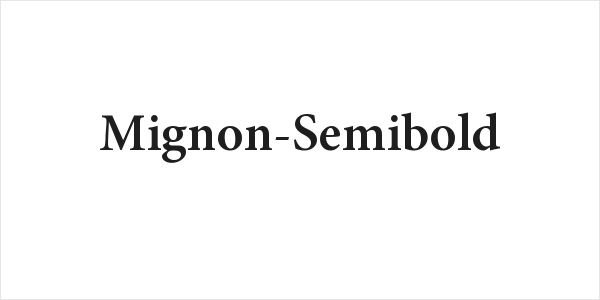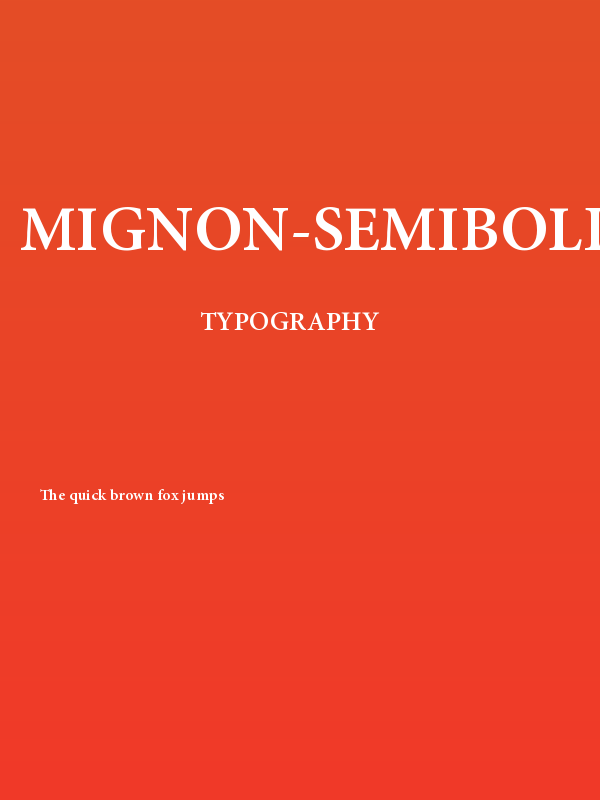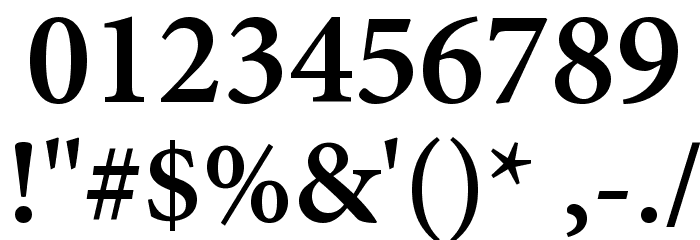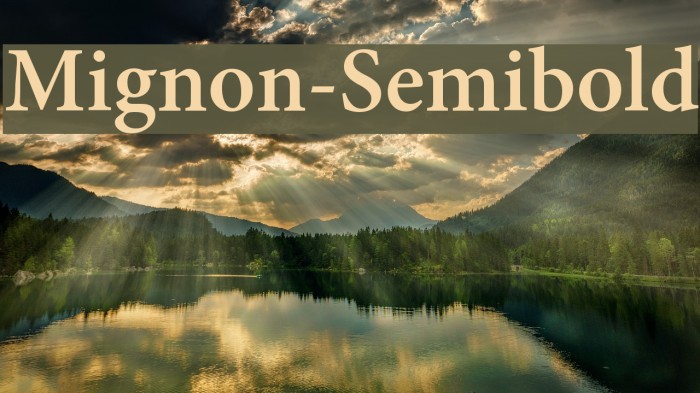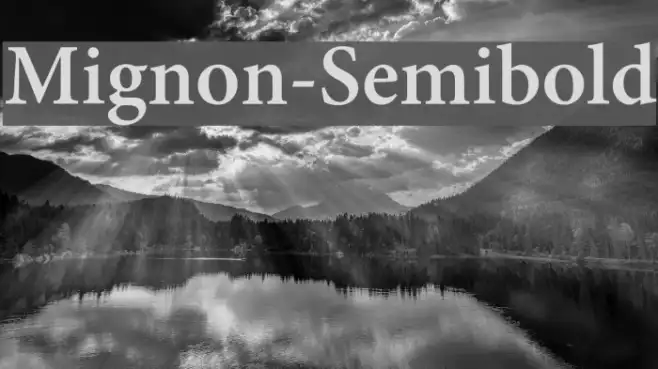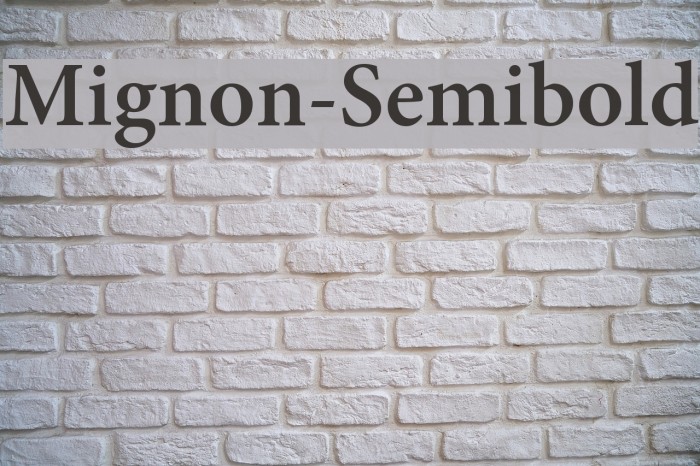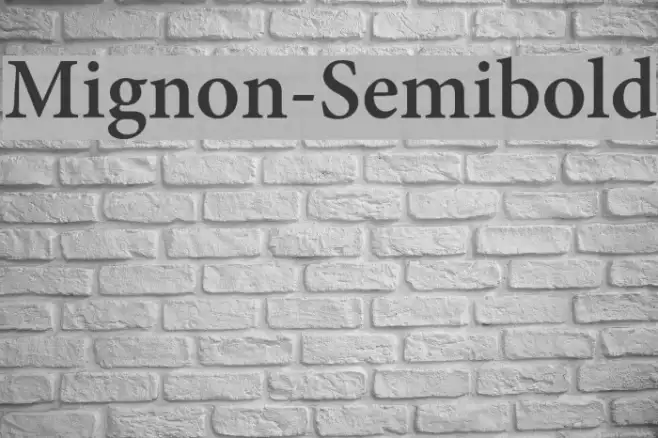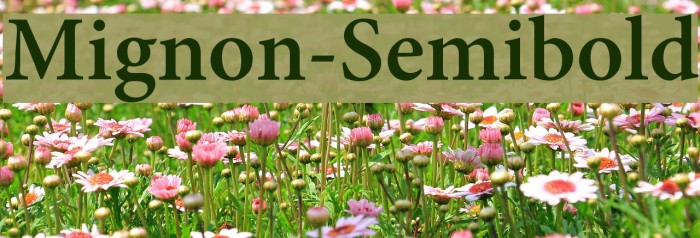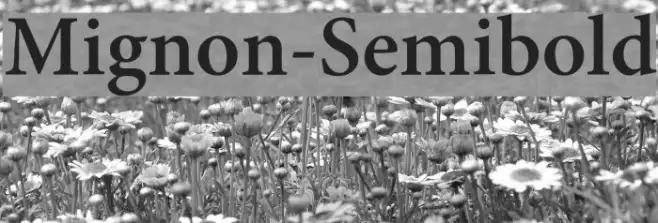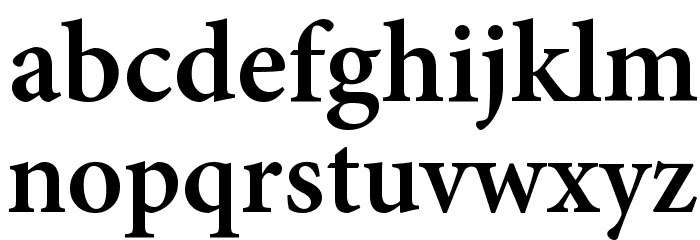
Mignon-Semibold Font
Mignon-Semibold Description
This font features a classic serif style with elegant and refined strokes. The uppercase letters are bold and commanding, while the lowercase letters maintain a graceful and balanced appearance. The numerals are clear and distinct, making them easily readable. Special characters are well-designed, complementing the overall aesthetic. The font's semi-bold weight provides a strong presence without overwhelming the reader, making it suitable for a variety of applications.
| Overall Style | Classic |
| Use Case | Headlines, Body text, Logos |
| Proposed Projects | Ideal for editorial design, book covers, formal invitations, and branding projects that require a touch of sophistication. |